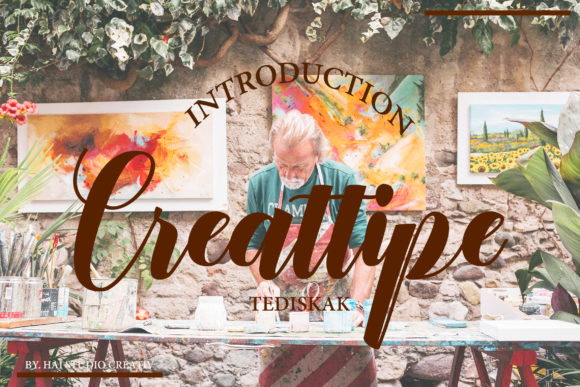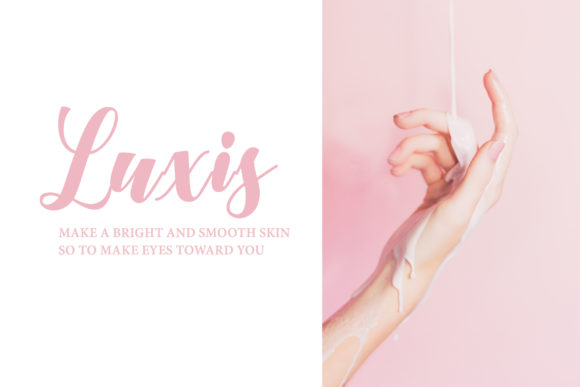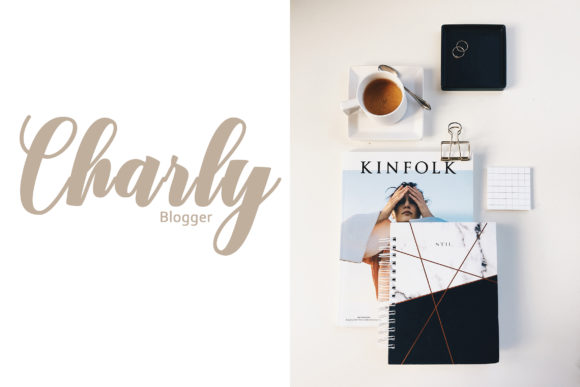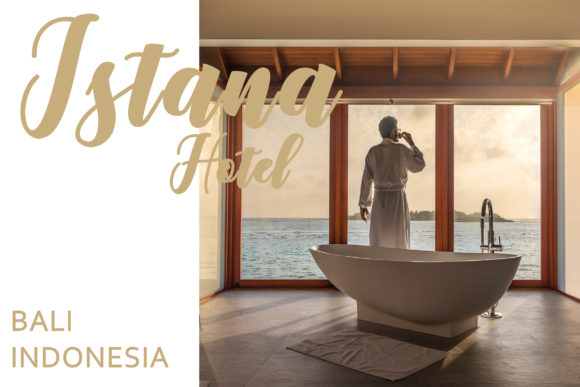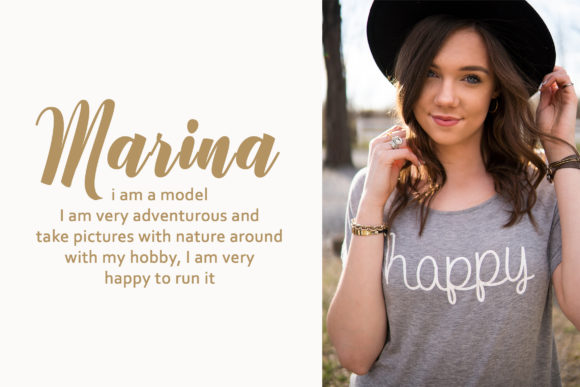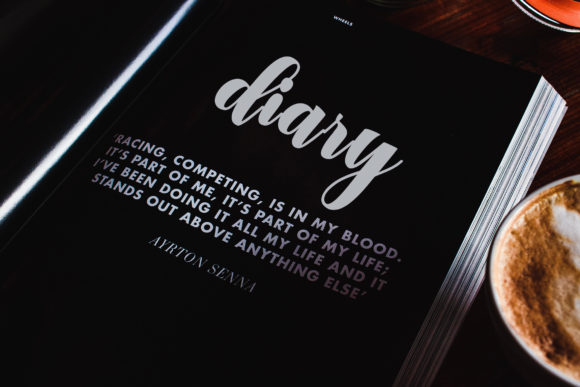
Creattipe Font
Creattipe is a sweet and smooth handwritten font with an authentic feel. It’s the perfect font for adding a modern charm to any creative idea!